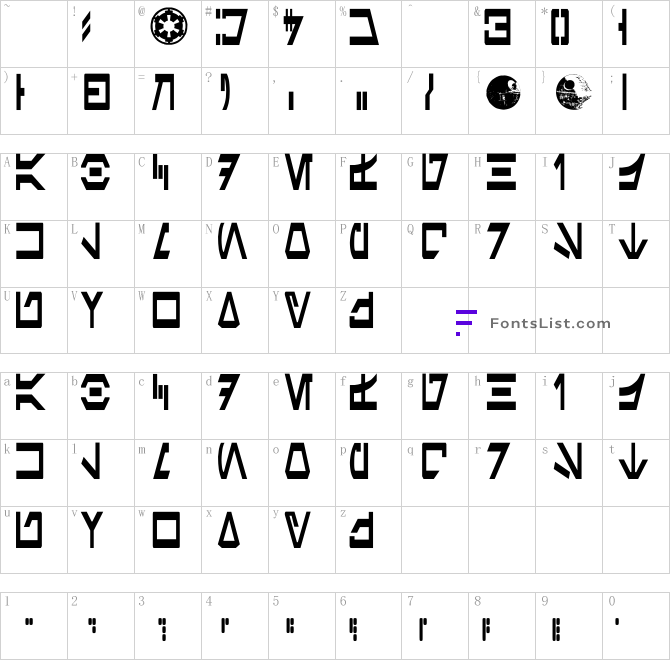
- Font Name:Aurek-Besh Narrow
Aurek-Besh-Narrow-copy-2-.ttf is a very beautiful artistic font, Aurek-Besh-Narrow-copy-2-.ttf is widely used in the design and printing of various books and pictures,Aurek-Besh-Narrow-copy-2-.ttf has a strong visual impact,Aurek-Besh-Narrow-copy-2-.ttf is a commonly used font in newspapers, magazines and books, and is used in posters, e-commerce Poster design, store design, logo design, font design and other fields.Aurek-Besh-Narrow-copy-2-.